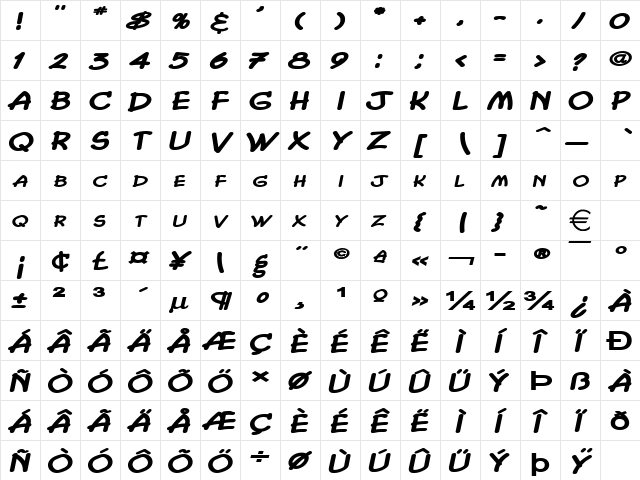
ChasmExtendedHeavy Italic
Design Context for ChasmExtendedHeavy Typeface
ChasmExtendedHeavy offers clean, dependable letterforms without strong stylistic allegiance, making it a practical choice for designers who need flexibility. The dynamic lean of this cut emphasises speed and emphasis in any layout.
Pro Tip: Use ChasmExtendedHeavy for emphasis, pull quotes, and subheadings where its slanted energy can add rhythm to the layout.